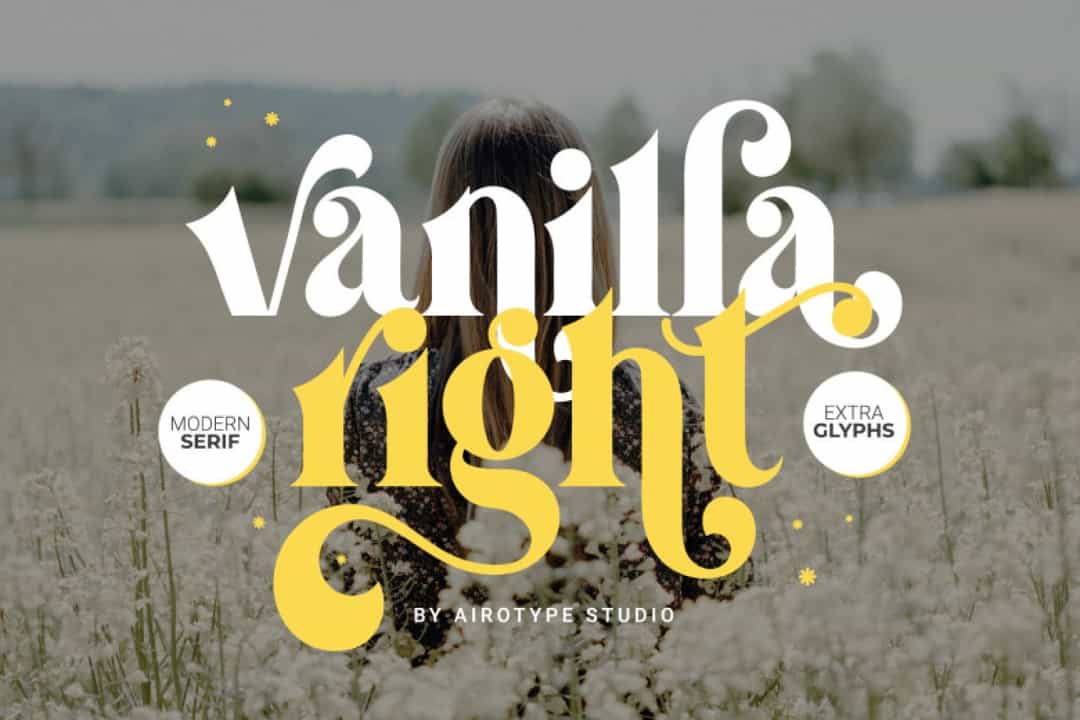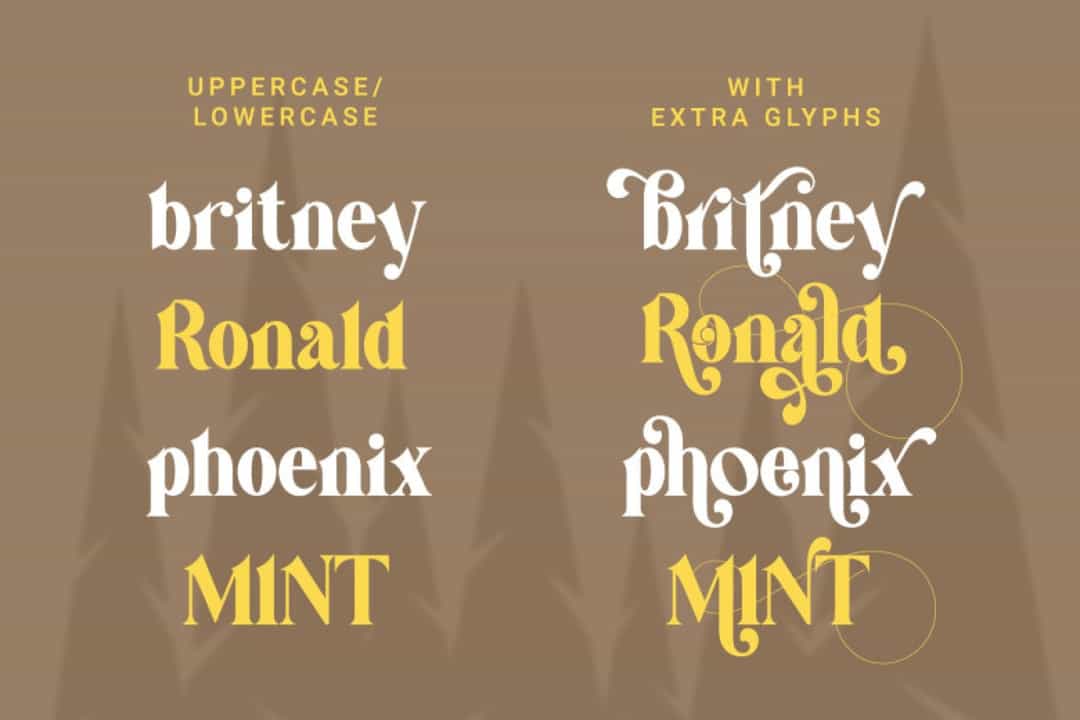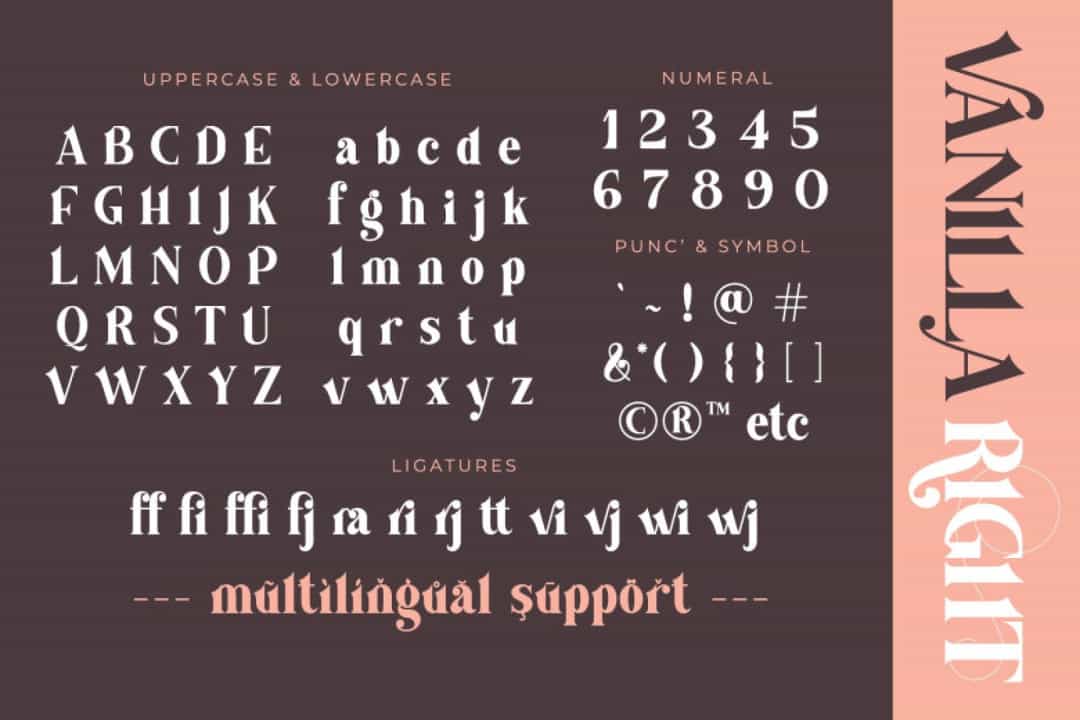
Vanilla Right is an eye-catching serif typeface with a modern and beautiful style. Featuring additional glyphs for designers to utilize in their creations and decorative swirly extras that give it a classy and chic aesthetic, Vanilla Right makes an impression in its modern yet classic appearance.